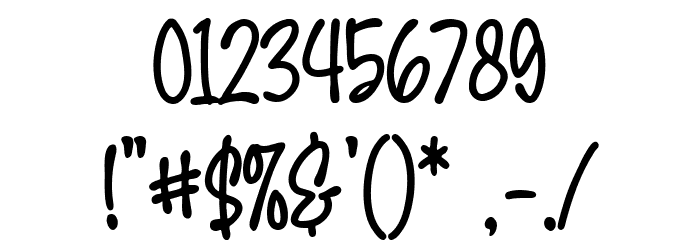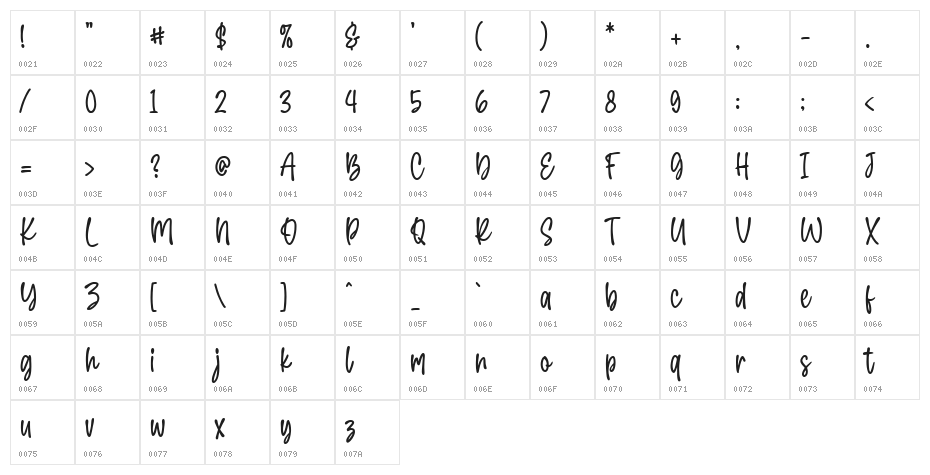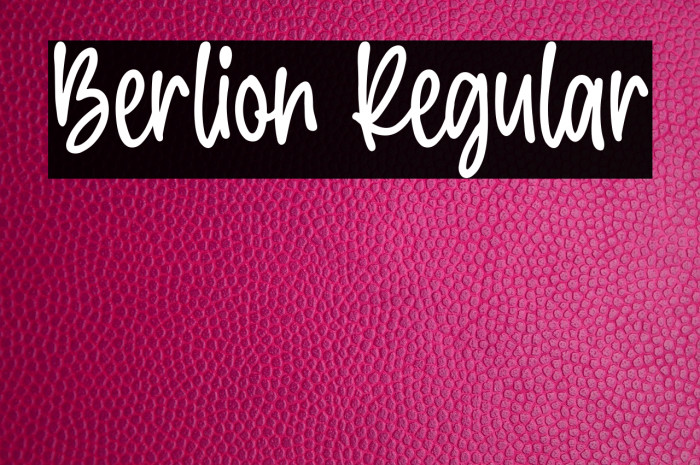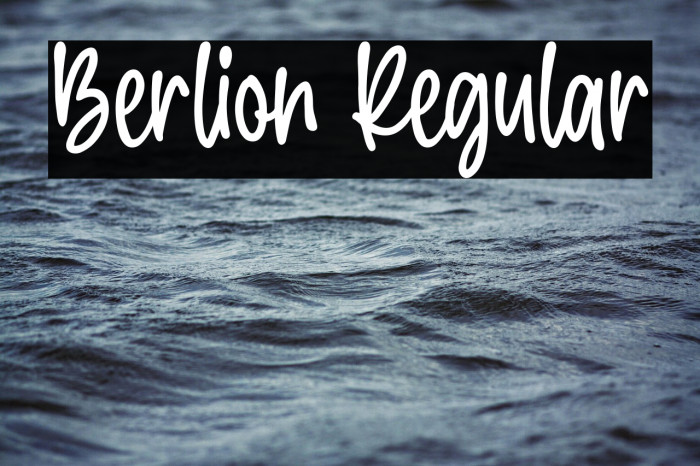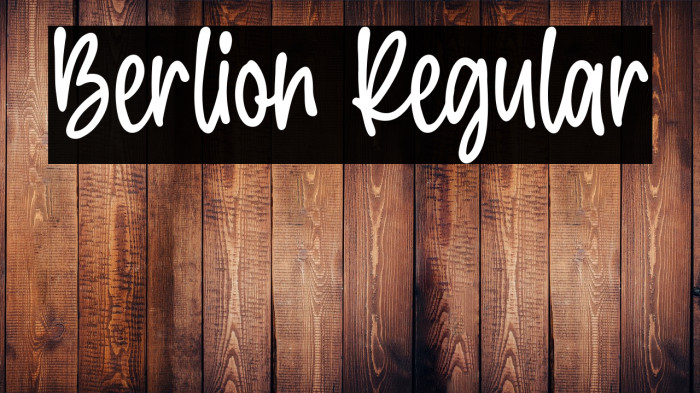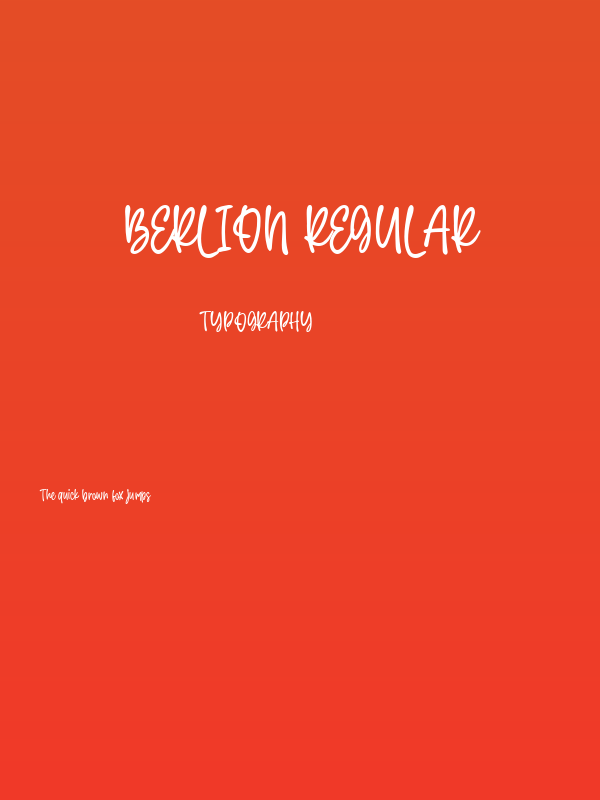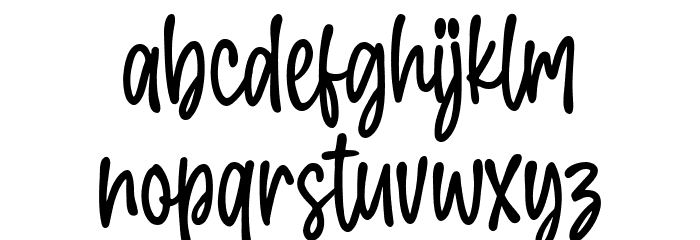
Berlion Regular Font
Berlion Regular Description
This font features a playful and casual handwritten style, characterized by its fluid and dynamic strokes. The letters are slightly slanted, giving it an informal and friendly appearance. The uppercase and lowercase letters maintain a consistent style, with rounded edges and smooth curves that enhance its approachable look. The numbers and special characters are designed to match the overall aesthetic, ensuring a cohesive appearance across all text elements. This font is ideal for projects that require a personal touch, such as invitations, greeting cards, or social media graphics.